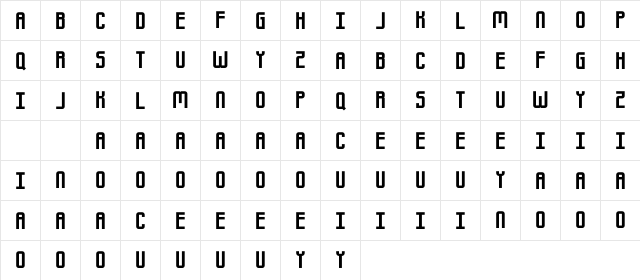
Gipfel Regular
| Designer | Aaron Bradley |
Design Context for Gipfel Typeface
Gipfel offers clean, dependable letterforms without strong stylistic allegiance, making it a practical choice for designers who need flexibility.
Pro Tip: Pair Gipfel with a font of contrasting weight or personality to build a more expressive typographic hierarchy.